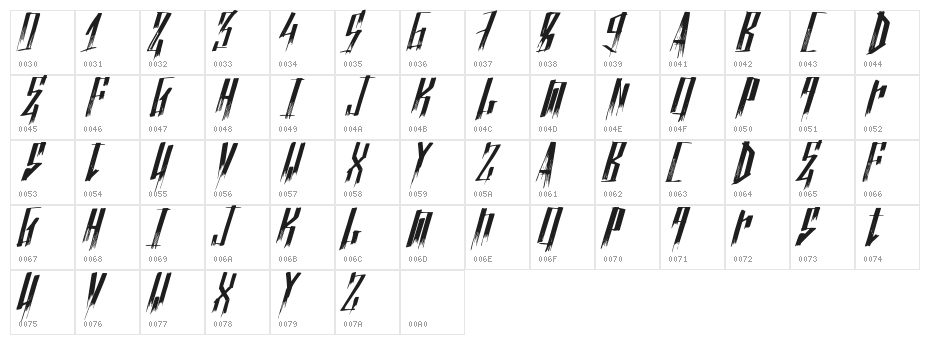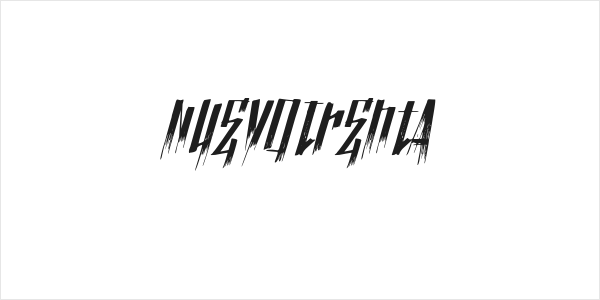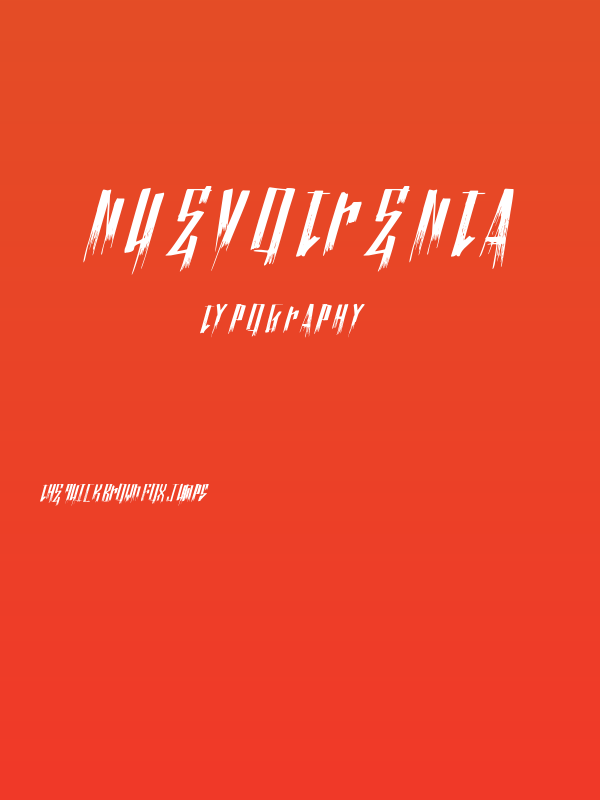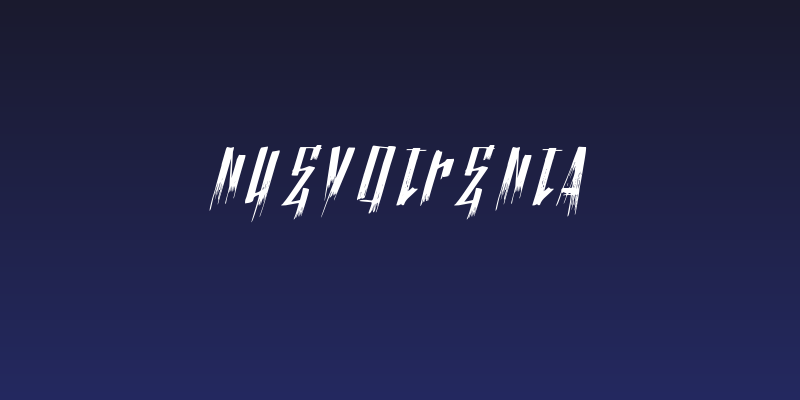
NuevoTrenta Font
NuevoTrenta Description
This font features a highly stylized and aggressive design, characterized by sharp, jagged edges and a dynamic, energetic appearance. The letters are elongated and have a distressed, almost shredded look, giving them a sense of motion and intensity. The uppercase and lowercase characters maintain a consistent style, with the uppercase being more pronounced. Numbers and special characters follow the same aesthetic, ensuring uniformity across all glyphs. This font is ideal for creating a bold statement and is perfect for projects that require a strong visual impact.
Overall StyleModern, Aggressive
Proposed ProjectsIdeal for music album covers, extreme sports branding, horror movie posters, and edgy fashion labels.